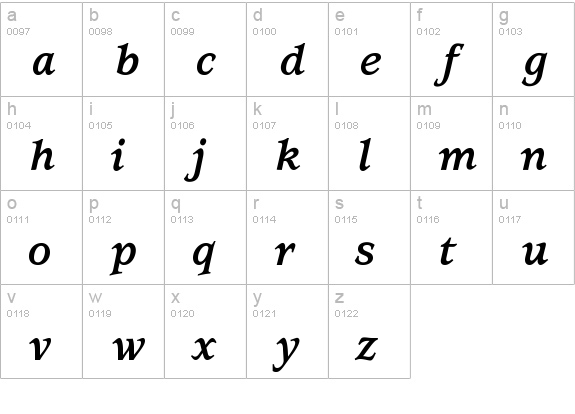
UsherwoodBoldItalic Font Details
UsherwoodBoldItalic font is a striking and versatile typeface that exudes elegance and sophistication. With its bold and italicized design, it commands attention and adds a touch of luxury to any project. The sleek letterforms and gracefully slanted strokes make UsherwoodBoldItalic font perfect for headlines, titles, logos, and branding materials. One of the most appealing aspects of UsherwoodBoldItalic font is that it is available for free. Yes, you read that right! This remarkable font can be freely downloaded from FontsMarket.com. It provides an incredible opportunity for designers, creatives, and typographers to access a high-quality and visually captivating font without any cost. Whether you are working on a personal project or a professional assignment, UsherwoodBoldItalic font will surely elevate the visual appeal of your designs. Its distinctive and refined appearance adds a sense of uniqueness and sophistication to any piece of artwork. The bold and italicized nature of the font allows for creative experimentation and ensures that your message stands out with style. UsherwoodBoldItalic font is designed with precision and attention to detail, making it highly legible even at smaller sizes. This ensures that your audience can effortlessly read and comprehend your content, no matter the context. Its versatility makes it suitable for a wide range of applications, including print materials, digital designs, websites, and more. Thanks to FontsMarket.com, UsherwoodBoldItalic font is now readily available for everyone to enjoy. Simply visit the website, download the font, and unlock a world of design possibilities. So, why wait? Embrace this exquisite font and let your creativity soar, all while enjoying the freedom of accessing it for free.